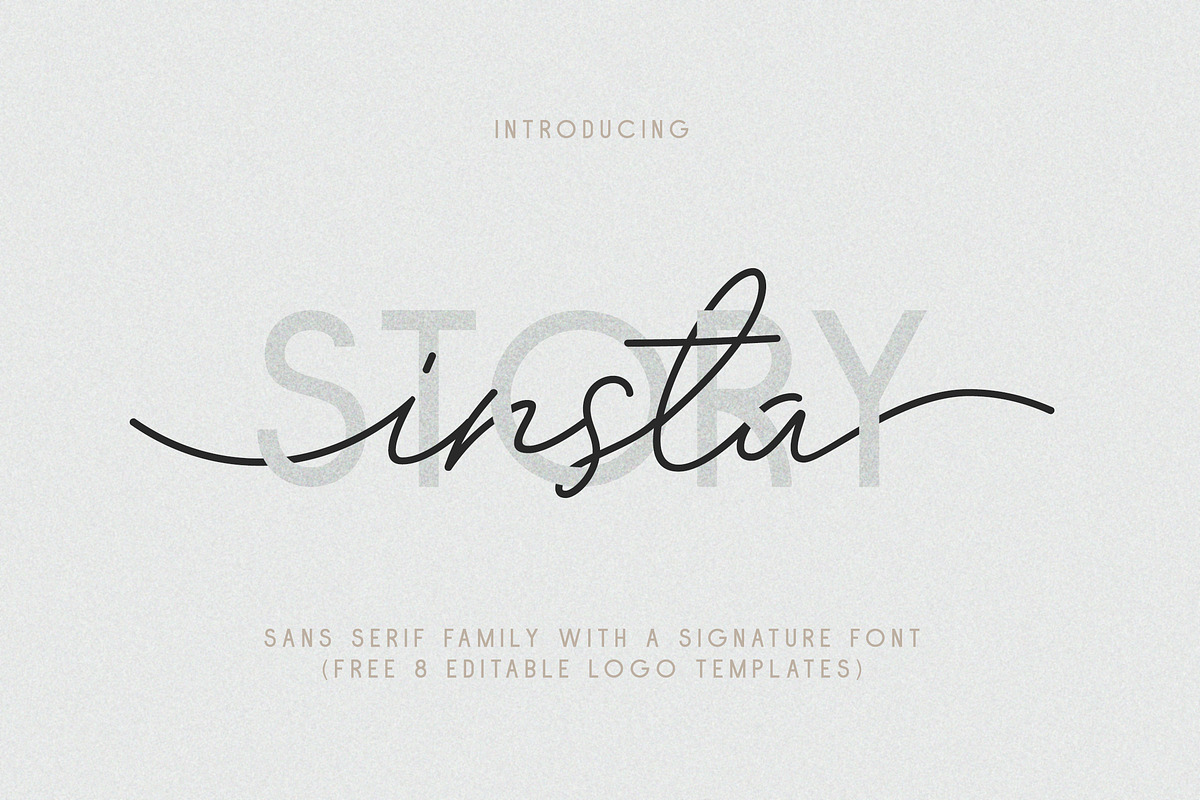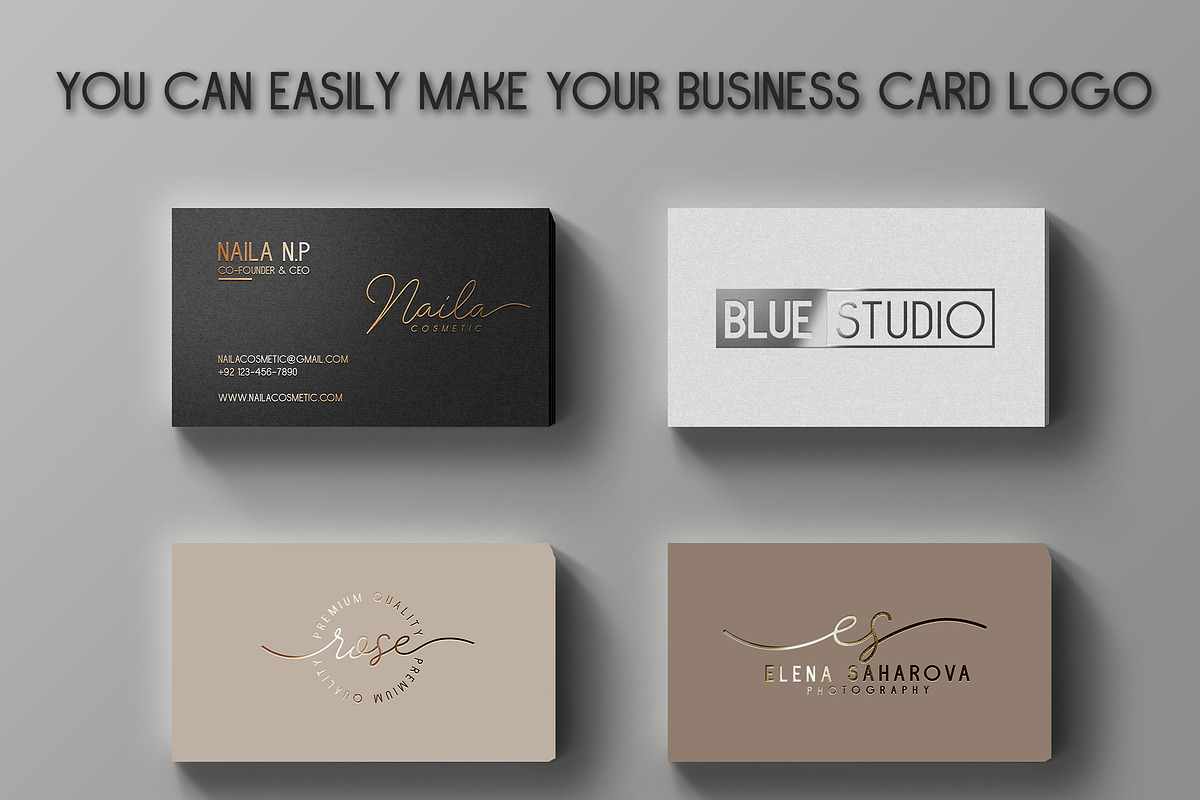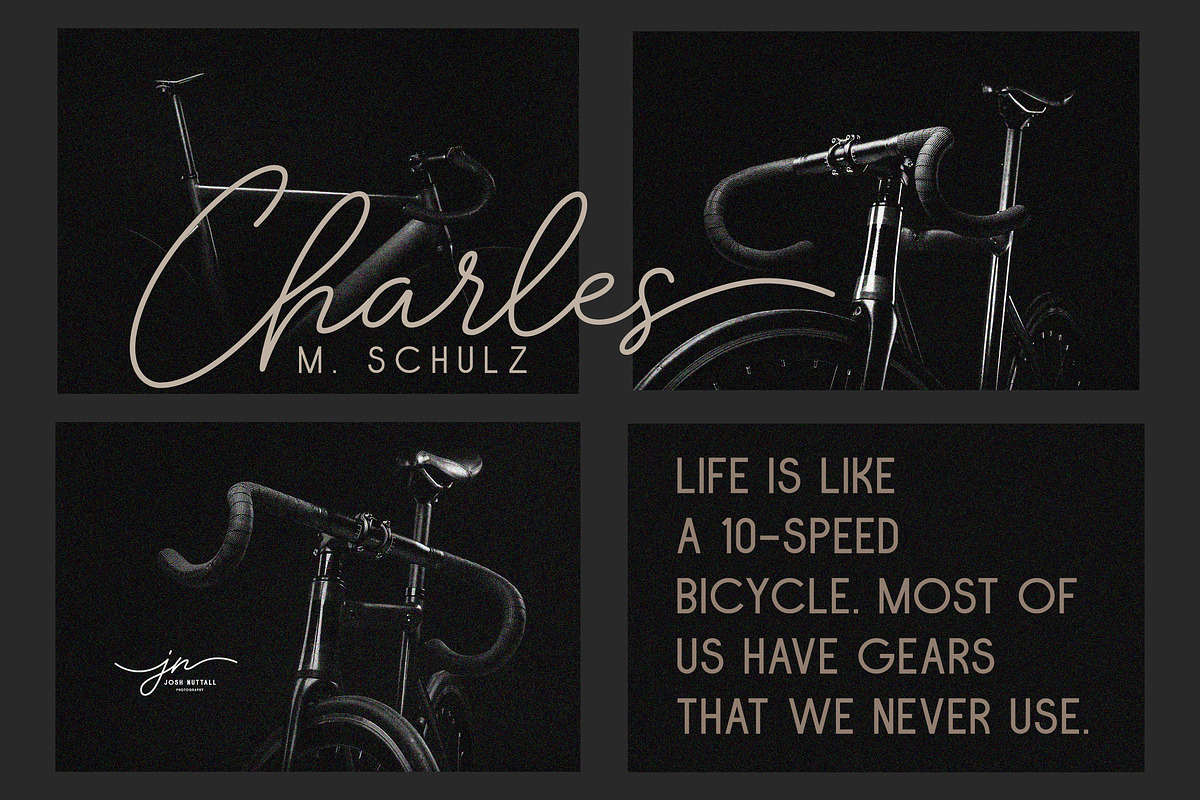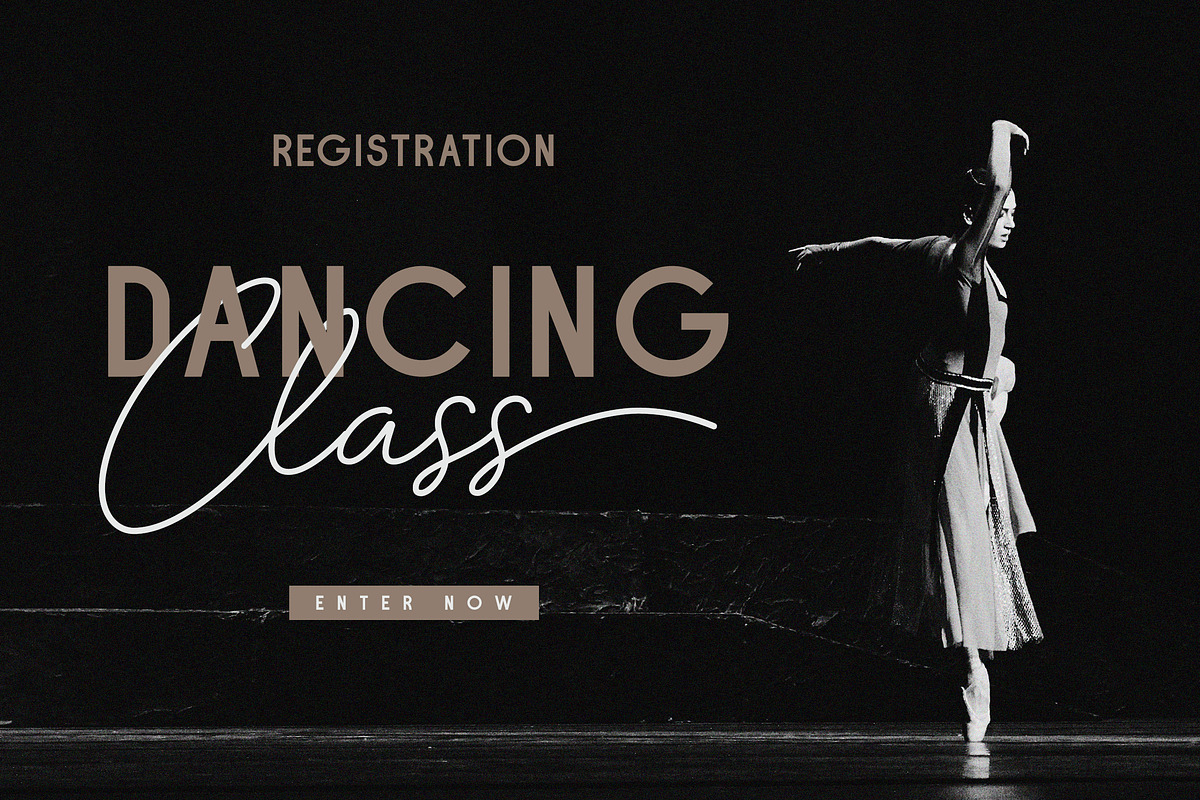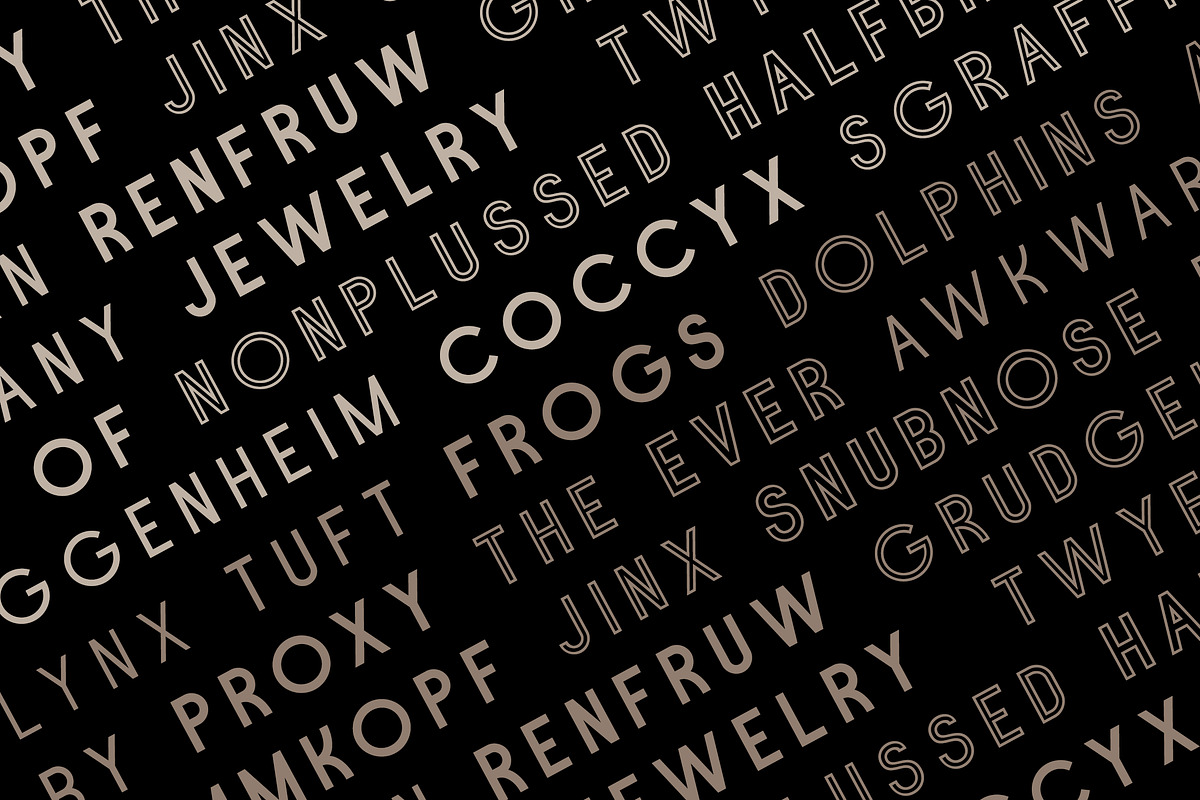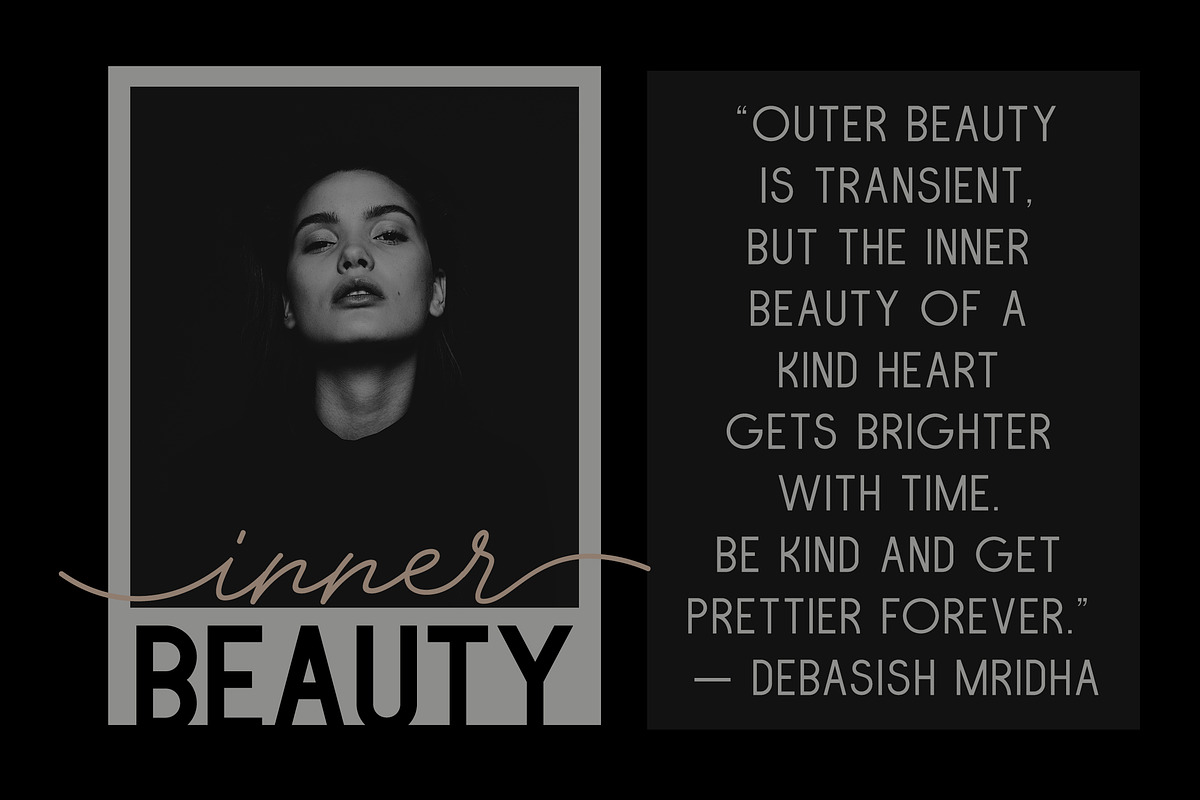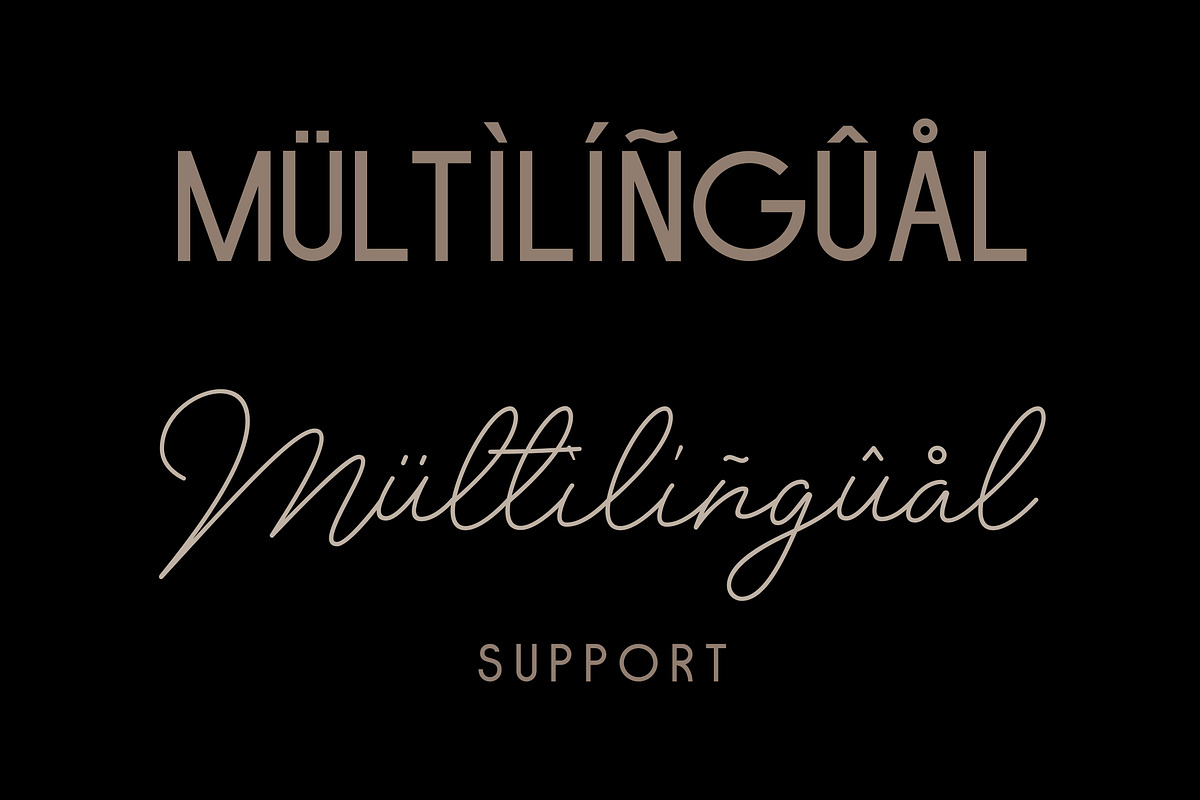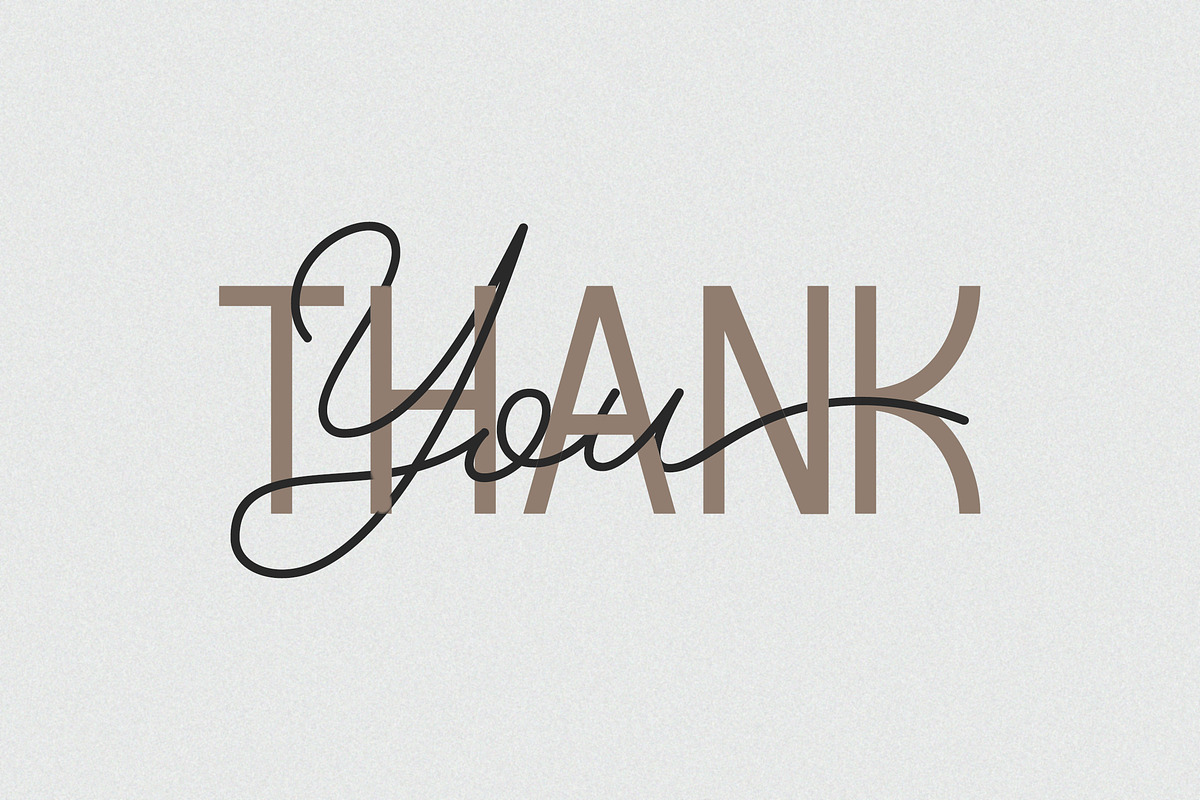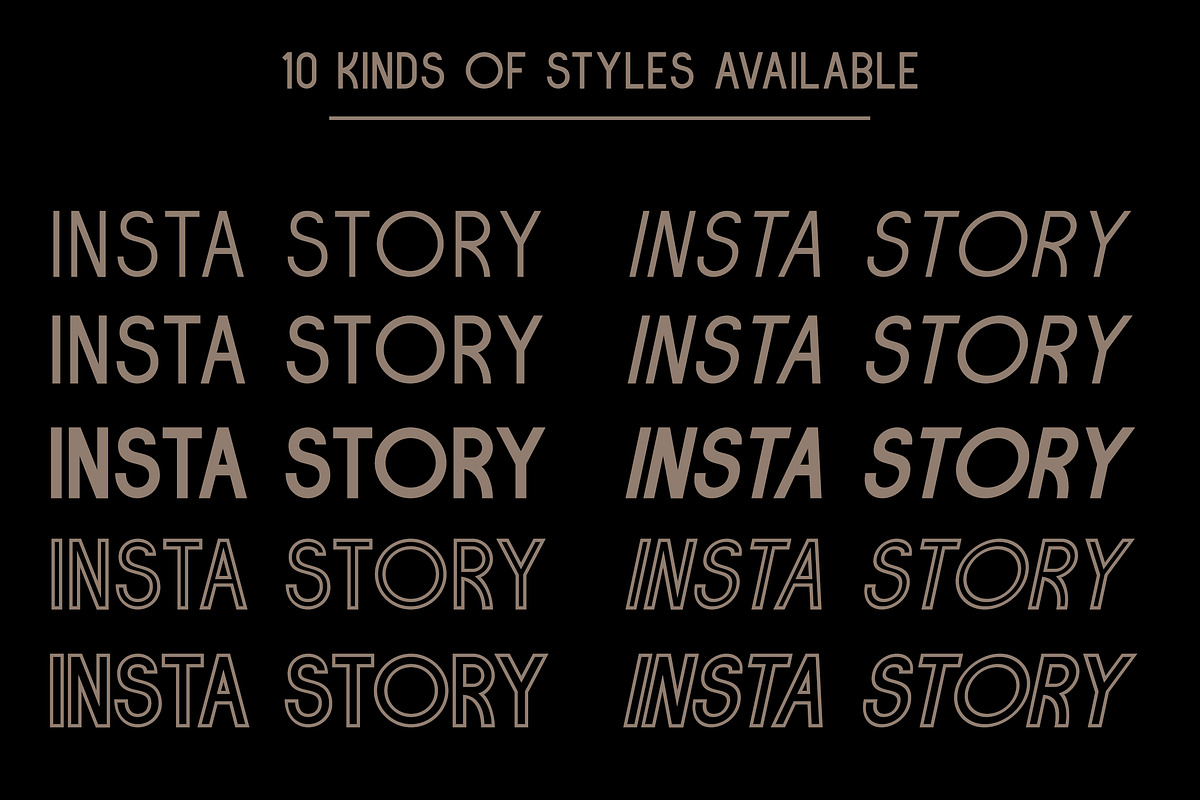
Insta Story // Font duo
Insta Story is a font duo that we created for all your design project needs.
Insta Story is a matching font duo, consisting of a family of 10 sans serif font styles and paired with signature fonts that we make like hand scratches, so that it looks natural.
Insta Story is perfect for all types of your business projects such as: logo design, business cards, greeting cards, magazines, newspapers, social media design, watermarks and more.
-Multilingual support - spread your message globally AÀÁÂÃÄÅCÇDÐEÈÉÌÍÎÏIÌÍÎÏNÑOØÒÓÔÕÖUÙÜÚÛWYÝŸÆßÞþ Encoded PUA Characters